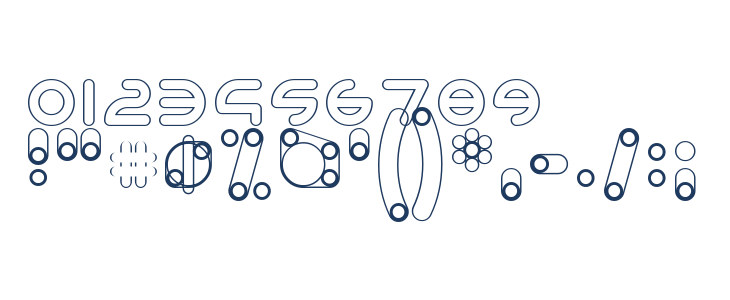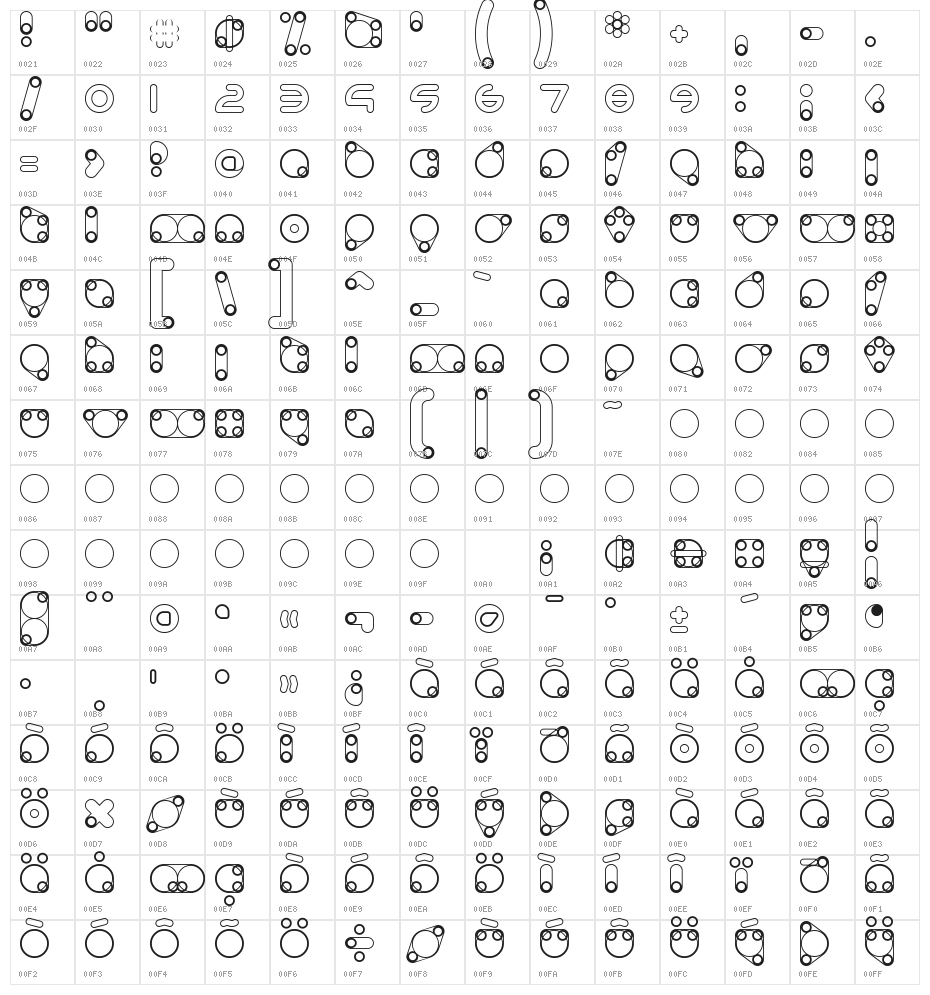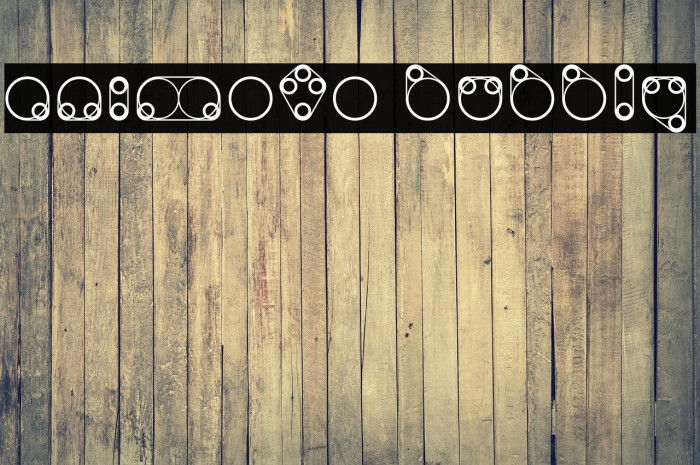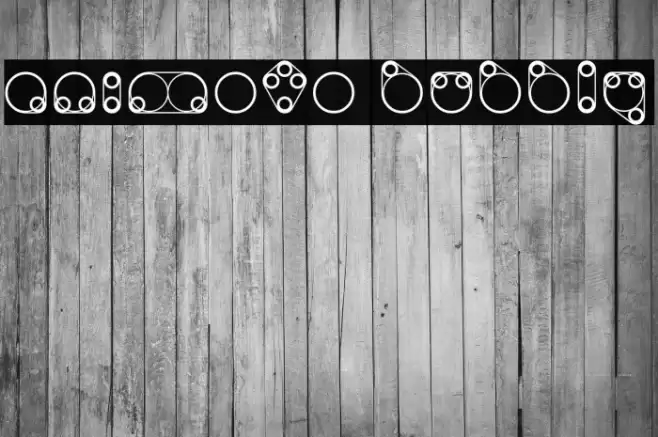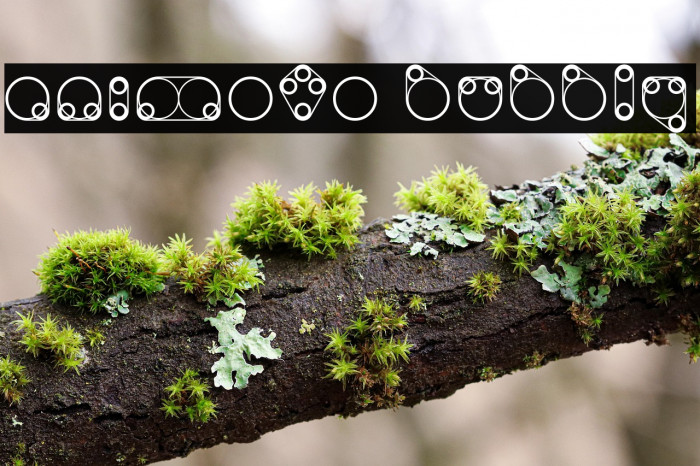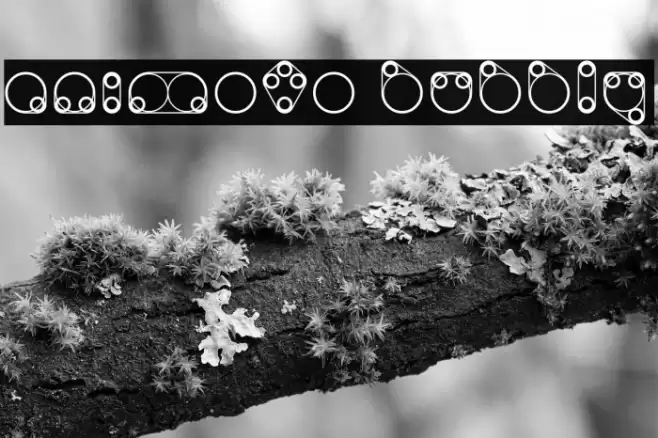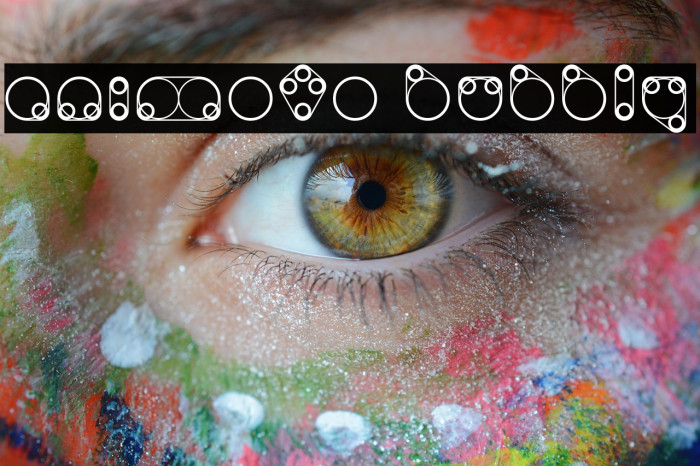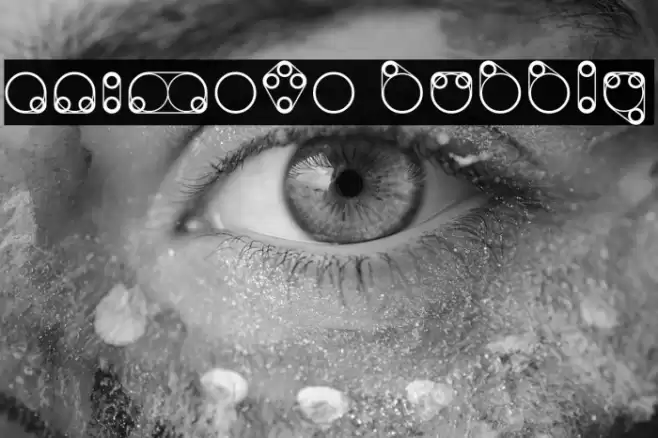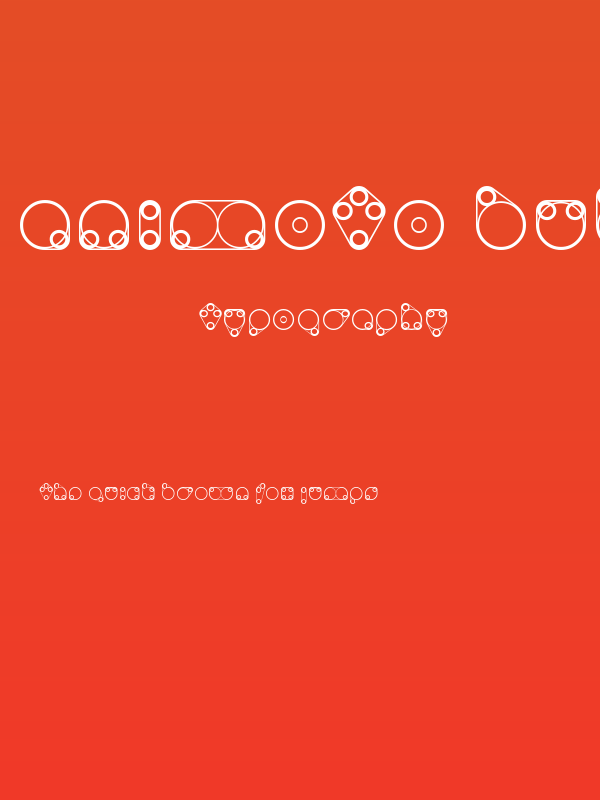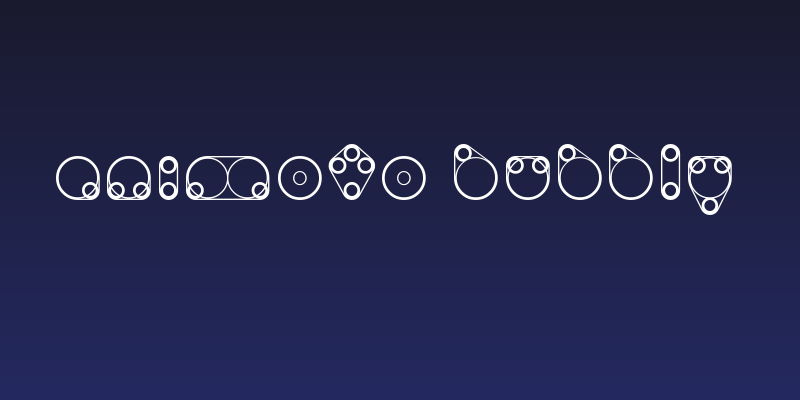
Animoto Bubbly Font
Animoto Bubbly Description
This font features a playful and bubbly design, characterized by its circular and rounded shapes. Each character is composed of multiple overlapping circles, creating a whimsical and dynamic appearance. The font maintains a consistent stroke width throughout, contributing to its cohesive look. The unique structure of the letters gives it a modern and artistic flair, making it stand out in any design. The numbers and special characters follow the same design principles, ensuring uniformity across all elements. This font is ideal for projects that require a fun and engaging aesthetic.